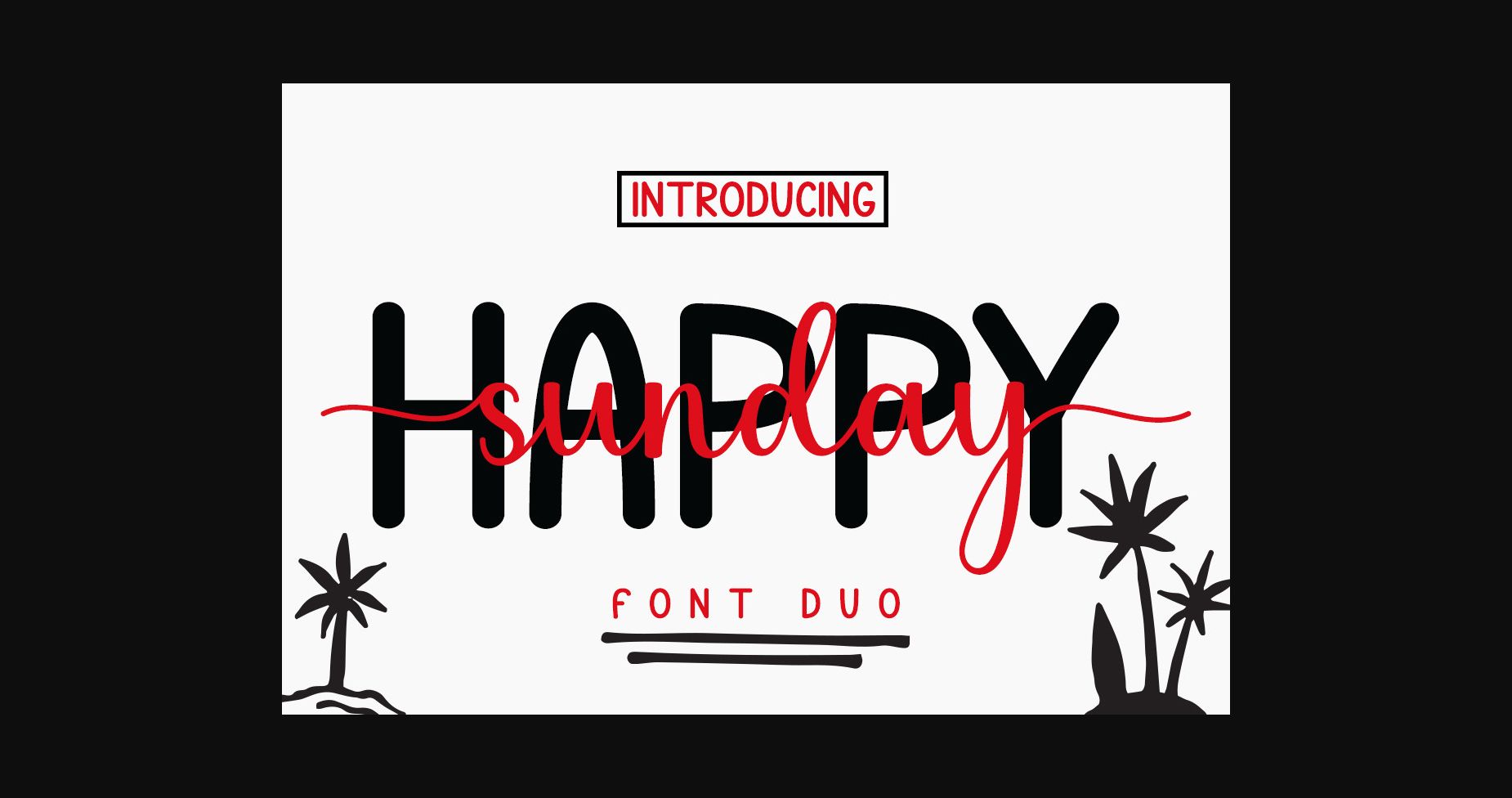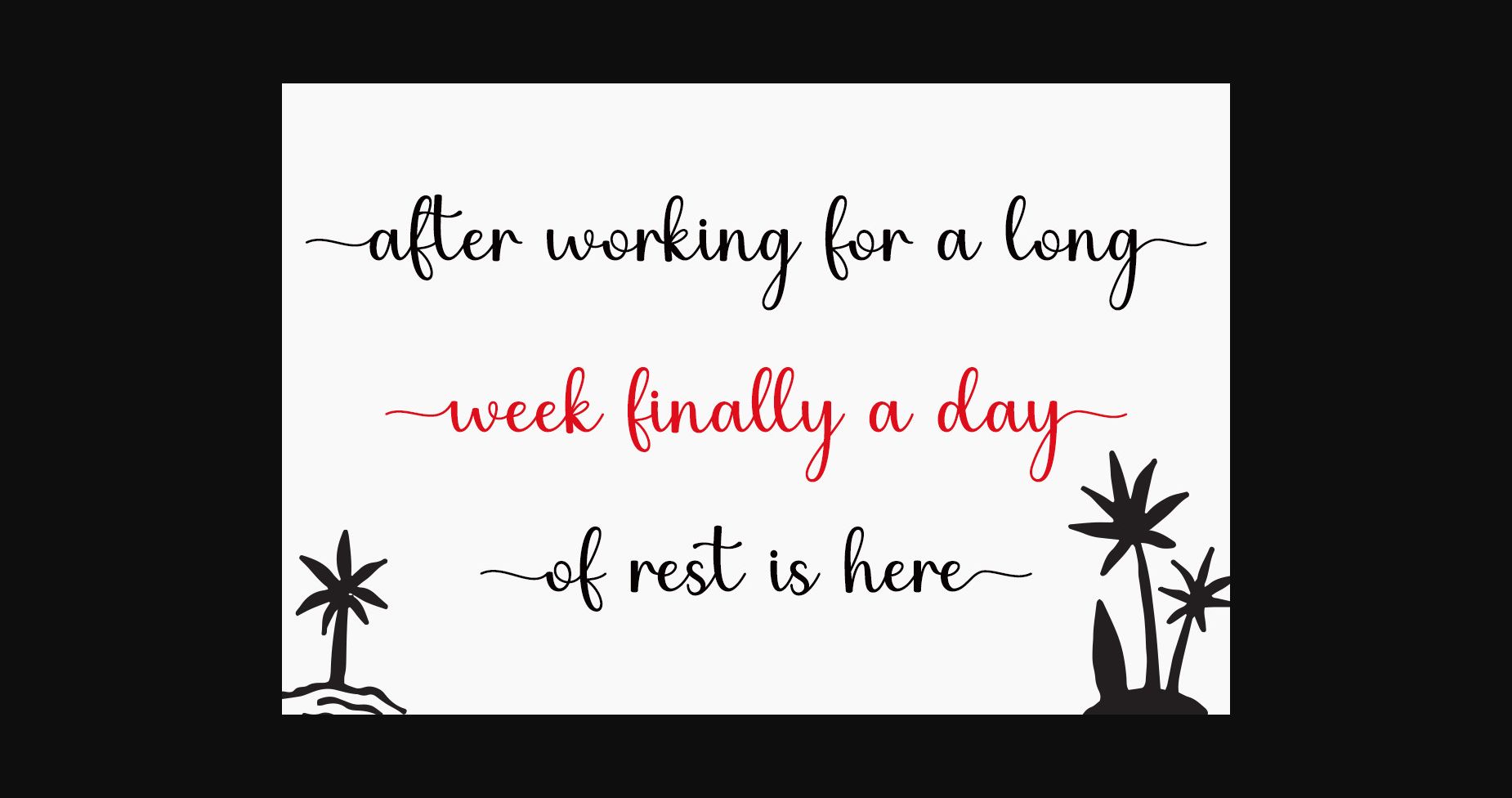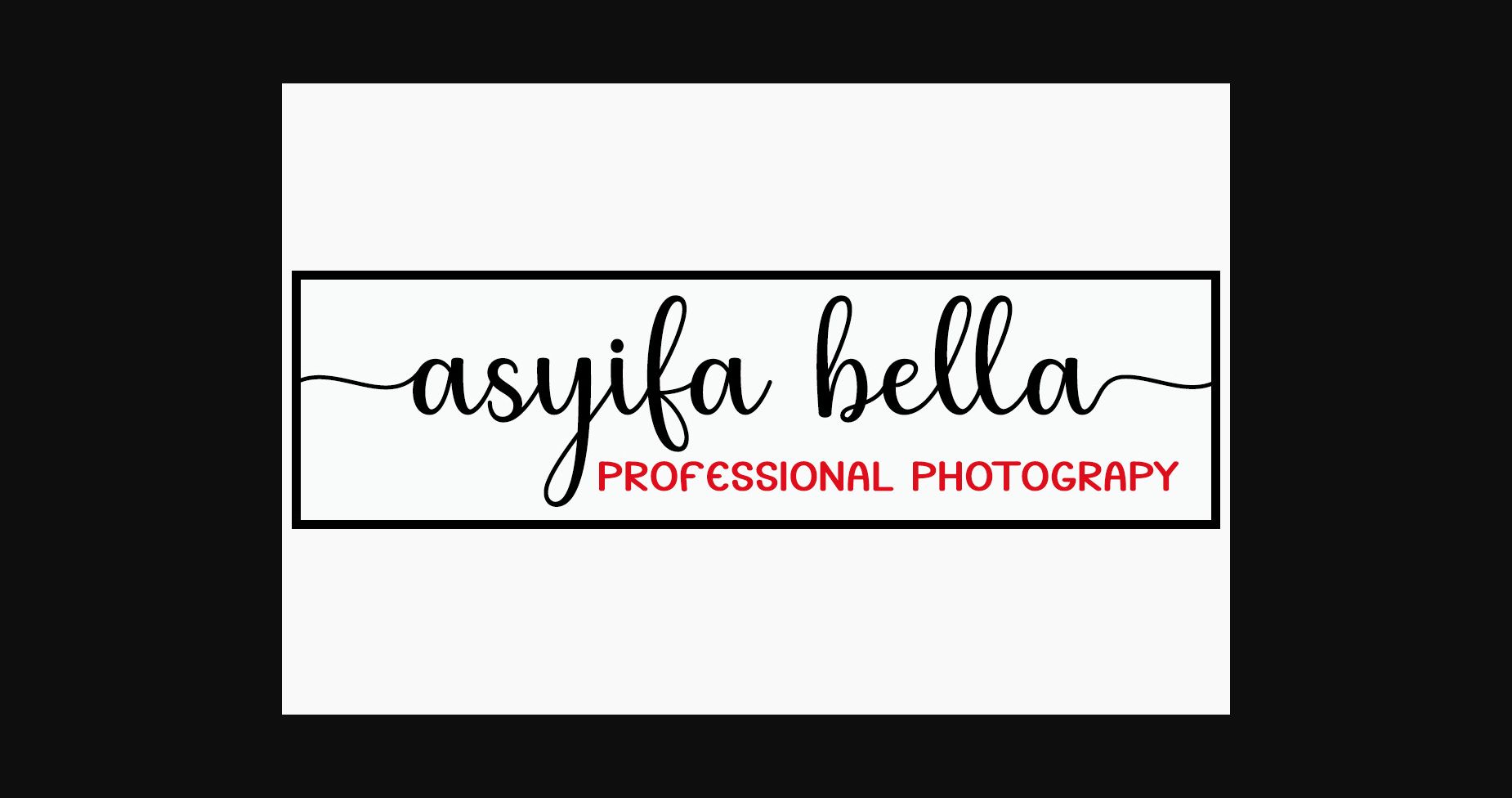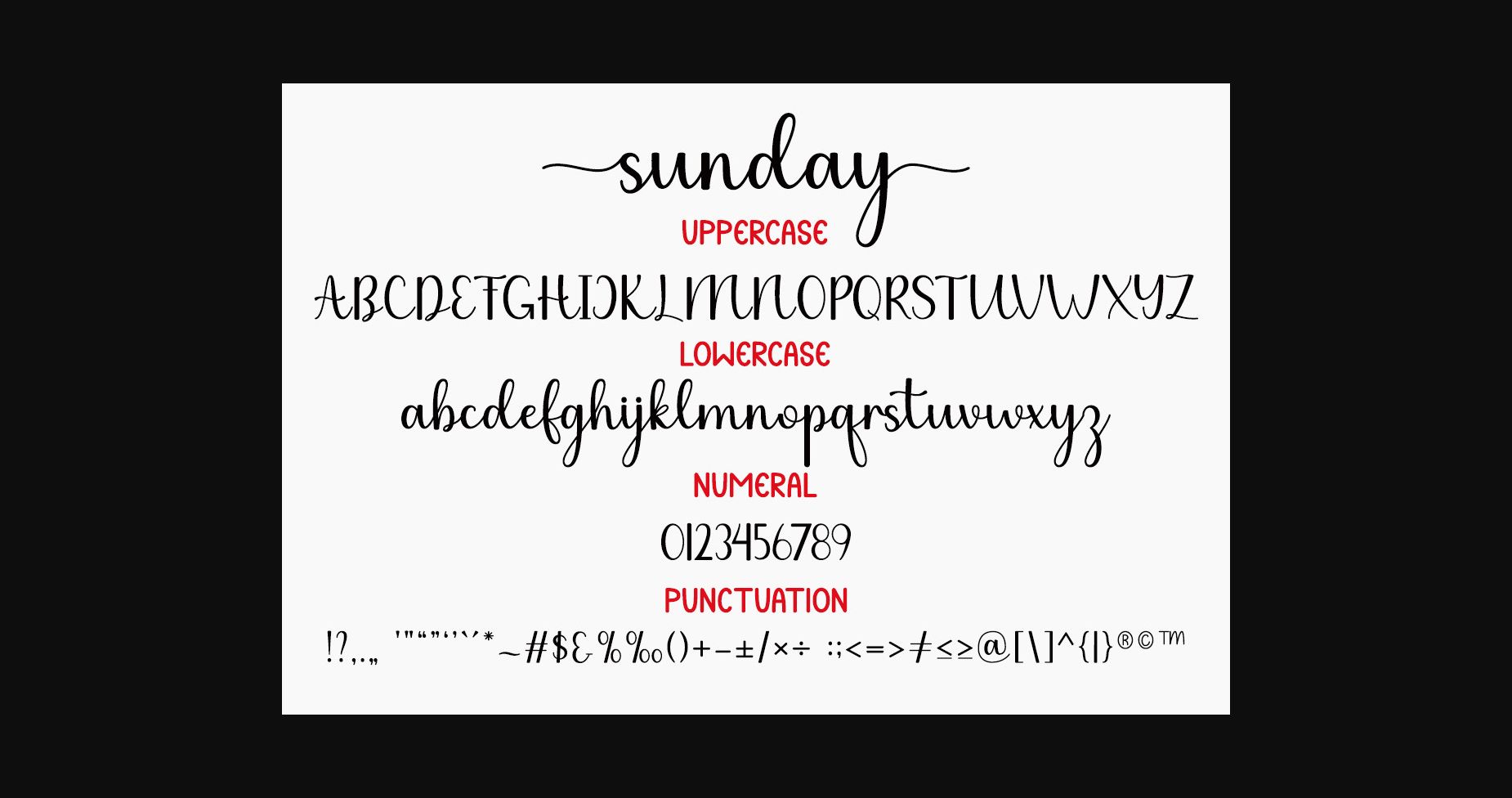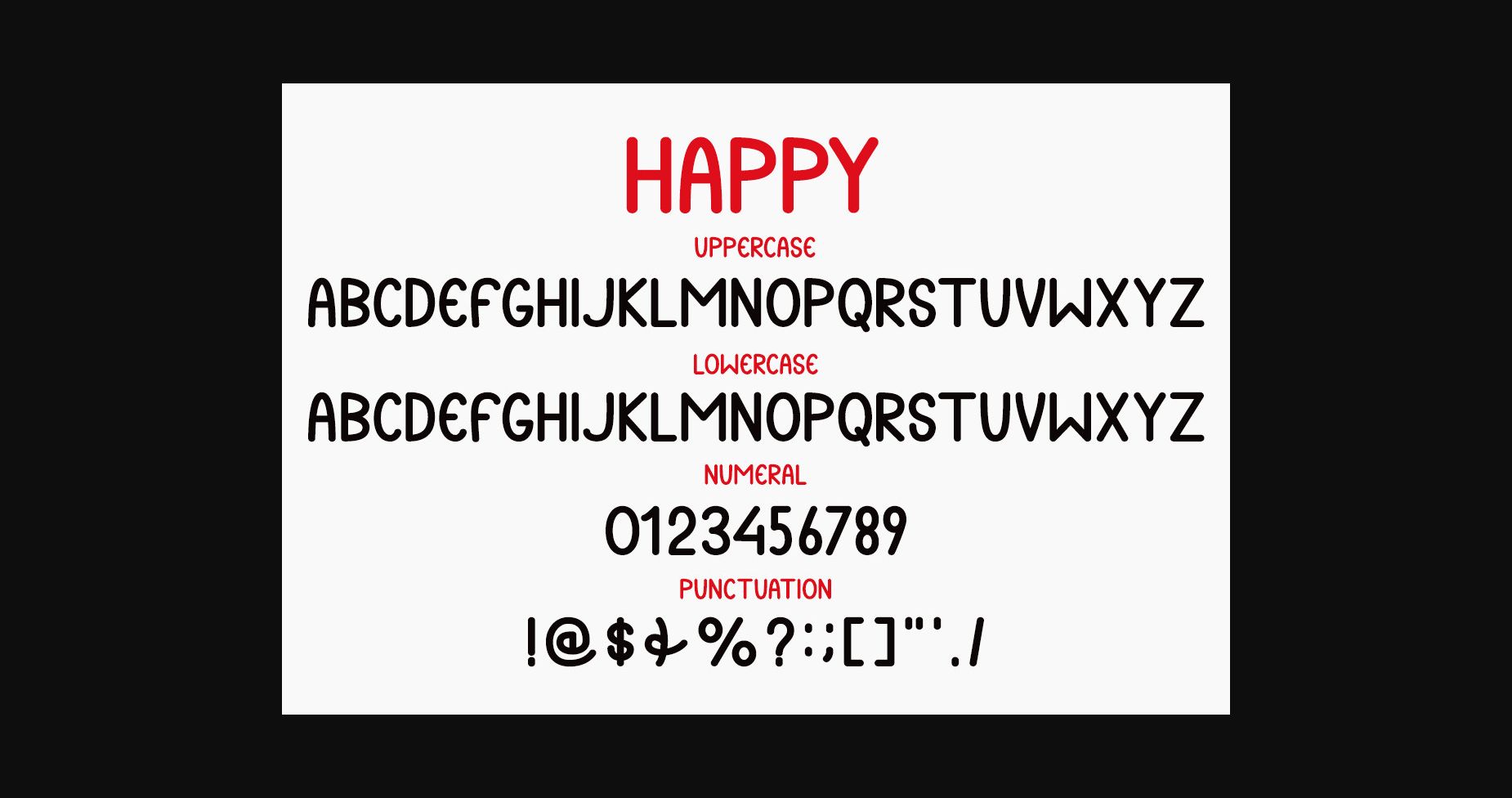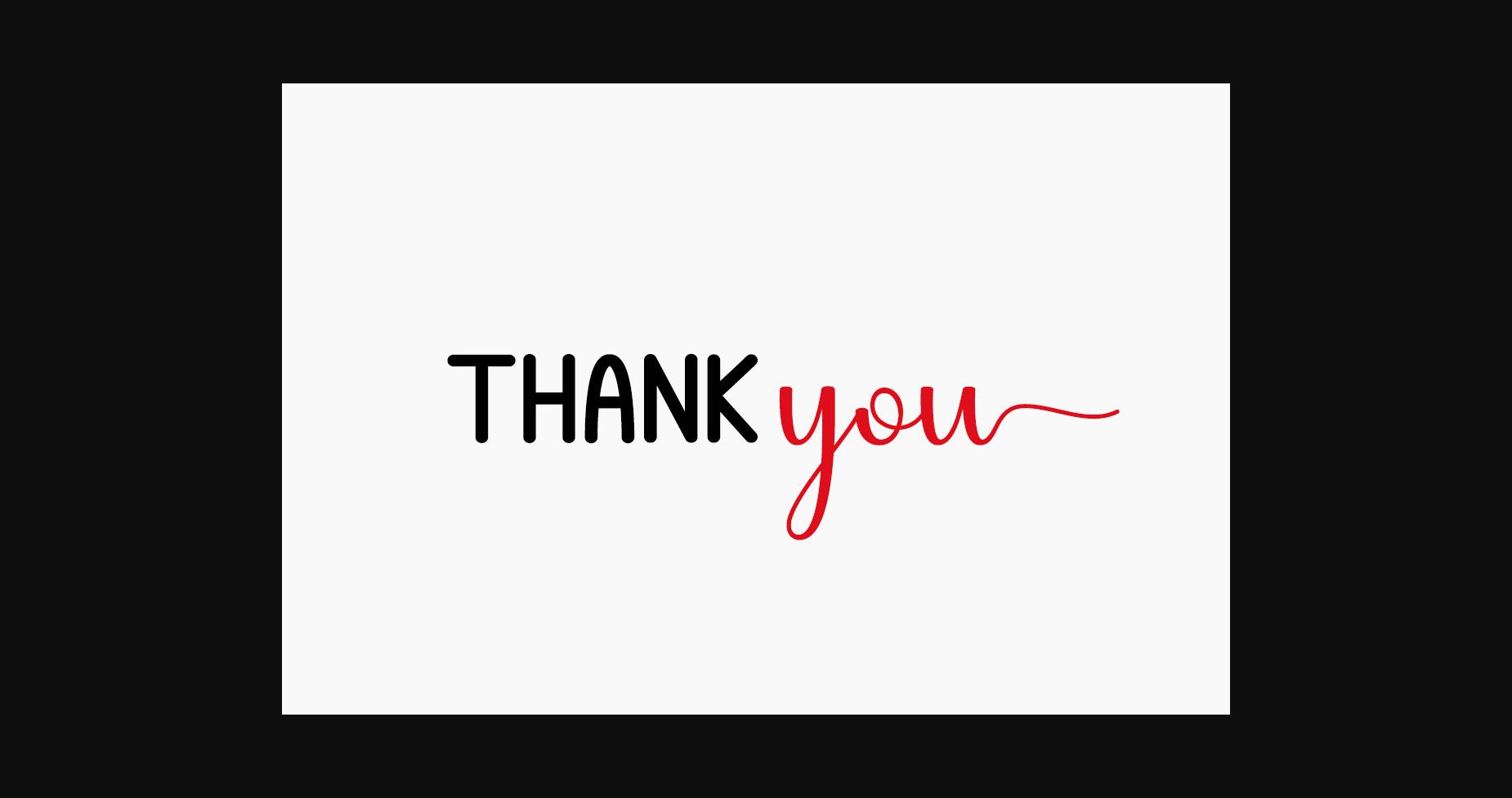
Happy Sunday Font
About Happy Sunday Font
Happy Sunday is a lovely, chic, and delicate duo font (sans serif and serif). Fall in love with its incredibly versatile style and use it to create spectacular designs! This font is PUA encoded which means you can access all of the glyphs and swashes with ease!